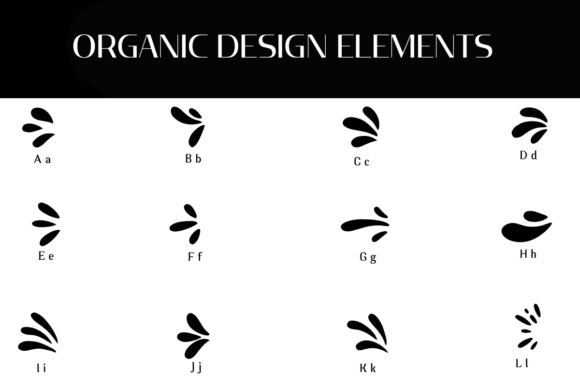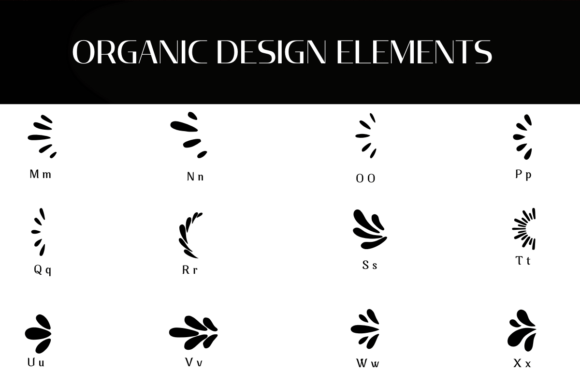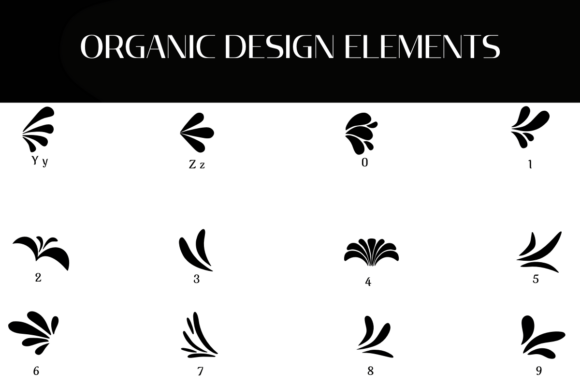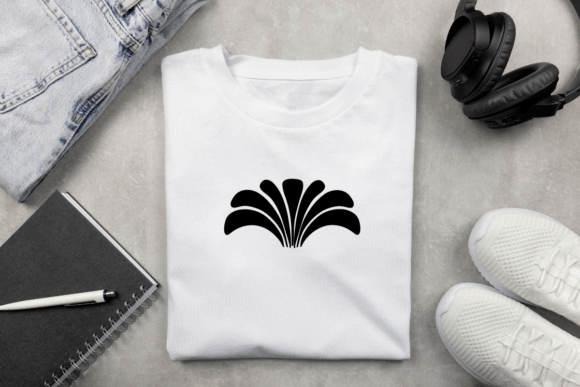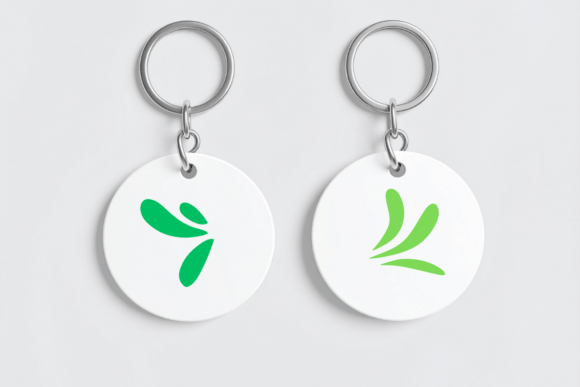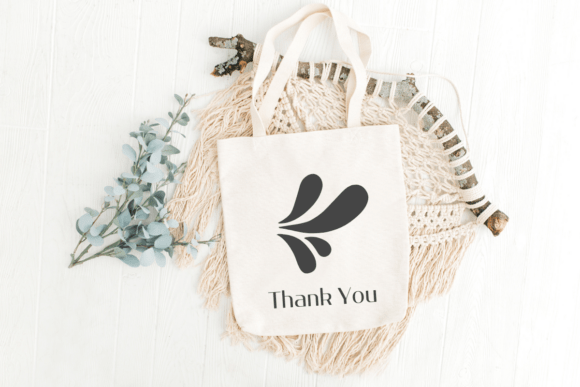
Introduction to Organic Design Elements Font
Have you ever been in the middle of a creative project, staring at a blank page or screen, and suddenly, a burst of inspiration strikes? You envision the perfect design element to bring your vision to life, and you can’t help but feel a rush of excitement. This is exactly what the Organic Design Elements Font is designed to do – spark your creativity and elevate your design projects.
As a valuable resource for designers, the Organic Design Elements Font offers a unique blend of style and functionality. With its high-quality, free download option, you can easily incorporate this font into your creative projects, from logos and graphics to digital art and more. Plus, its transparent background makes it perfect for use on any design surface.
Whether you’re a seasoned designer or just starting out, the Organic Design Elements Font is sure to be a game-changer. Its organic design elements are the perfect addition to any creative project, adding a touch of whimsy and personality that’s hard to find elsewhere.
Key Features of Organic Design Elements Font
- High-quality design resource with a unique, hand-drawn aesthetic, perfect for creative projects.
- Includes a range of design elements with transparent backgrounds, allowing for seamless integration into any design.
- Features a large size of 300 DPI resolution, ensuring crisp and clear details in high-resolution designs.
- Organic Design Elements Font is a comprehensive design resource, offering over 100 unique design elements, including shapes, icons, and patterns.
- Suitable for use in a variety of design contexts, from branding and marketing materials to digital products and websites.
Honest Review: Organic Design Elements Font
As a designer, I’m always on the lookout for high-quality design resources to elevate my creative projects. The Organic Design Elements Font caught my eye with its unique and modern aesthetic. Upon closer inspection, I found that it’s a great addition to any design arsenal.
- High-quality vector graphics that can be scaled up or down without losing clarity
- Wide range of design elements, including icons, shapes, and patterns
- Transparency options for seamless integration with other design elements
- Some design elements may be too simplistic for more complex projects
- Limited customization options for advanced designers
Overall, I’m impressed with the Organic Design Elements Font and its potential to enhance creative projects. While it may not be perfect, it’s a solid addition to any design resource library and a great starting point for designers looking to create high-quality designs.
Organic Design Elements Font
The Organic Design Elements Font is a versatile and creative design resource that can be used in a variety of projects. This high-quality font is available for free download and features a unique, organic design that can add a touch of elegance to any creative project.
To get the most out of the Organic Design Elements Font, consider the following tips:
- Use the font in conjunction with a transparent background to create a seamless, layered look.
- Combine the font with other design elements, such as graphics and images, to create a cohesive look.
The Organic Design Elements Font is commonly used in a variety of creative projects, including:
- Graphic design projects, such as brochures and posters.
- Web design projects, such as landing pages and websites.
- Print design projects, such as business cards and menus.
Alternatives to Organic Design Elements Font
Hand Drawn Elements Font
Hand Drawn Elements Font is a free download that offers a high quality design resource for creative projects. It features a wide range of hand-drawn elements with transparent background, making it perfect for designs that require a personal touch. Use it for projects that need a unique and artistic feel.
Compared to Organic Design Elements Font, Hand Drawn Elements Font has a more delicate and intricate design, making it suitable for projects that require a softer look. It’s also a great option for designers who want to add a human touch to their designs.